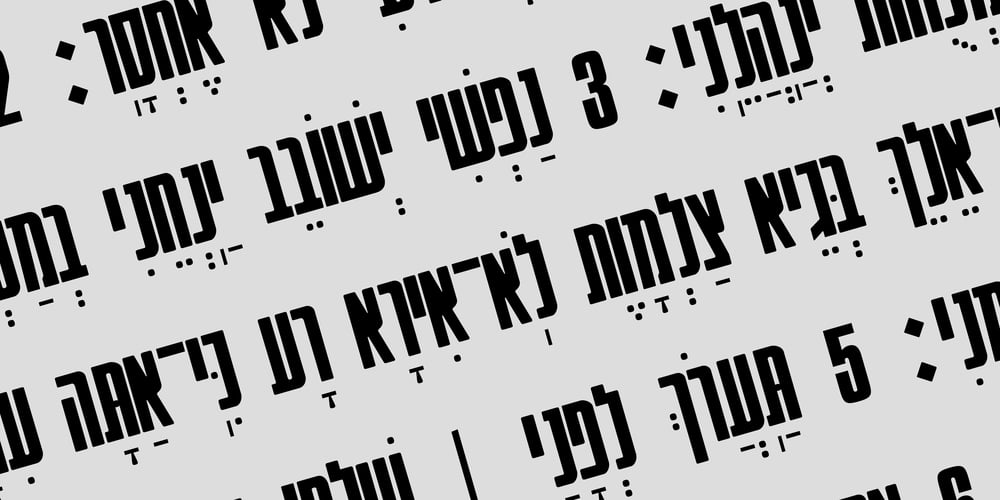
Hebrew Compressed
Hebrew Compressed font
Hebrew Compressed Font Family was designed by Sami Artur Mandelbaum and published by Samtype. Hebrew Compressed contains 3 styles and family package options. Modern Sans Serif Hebrew type.This font isbest for use in titles and small texts.